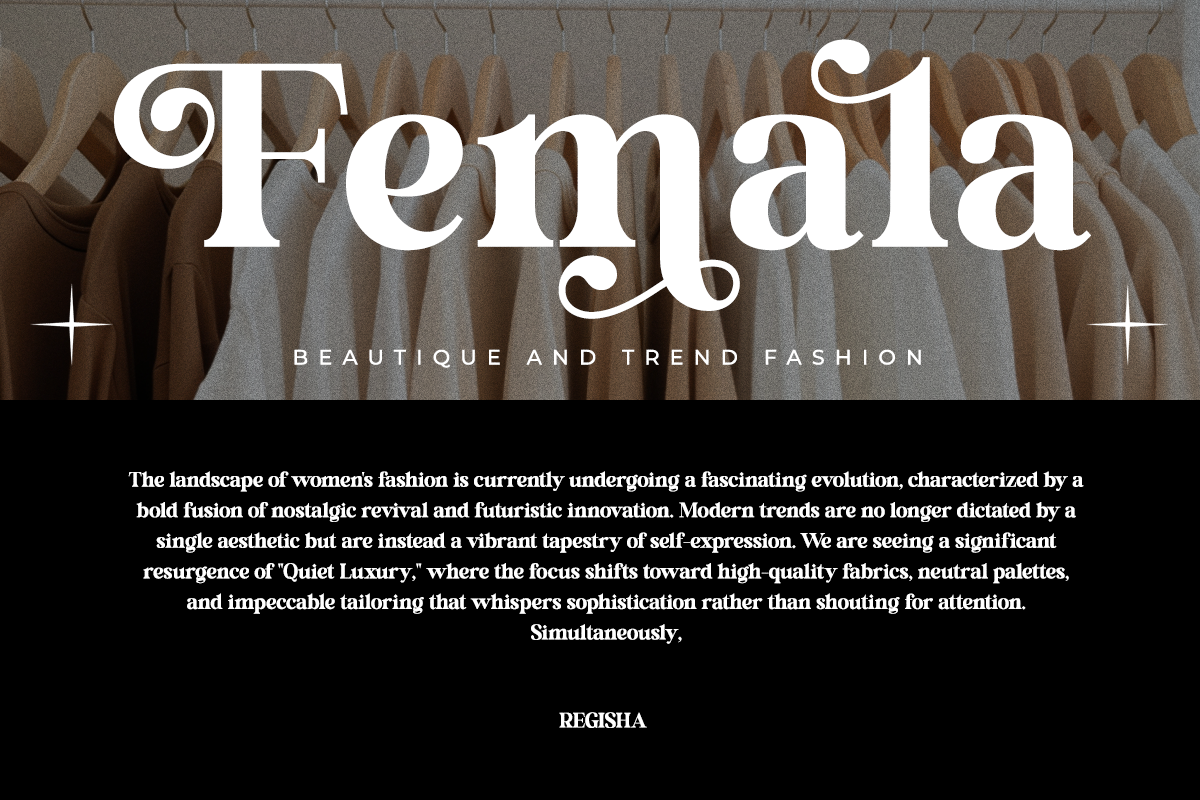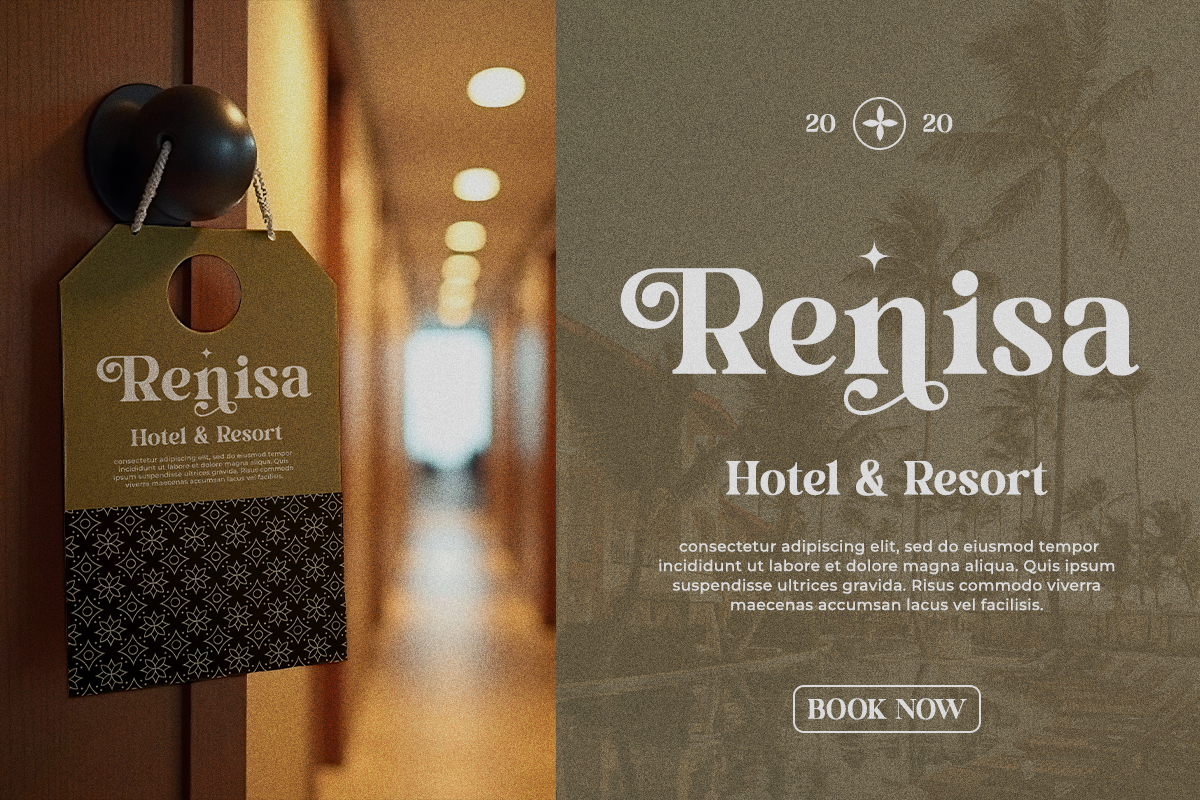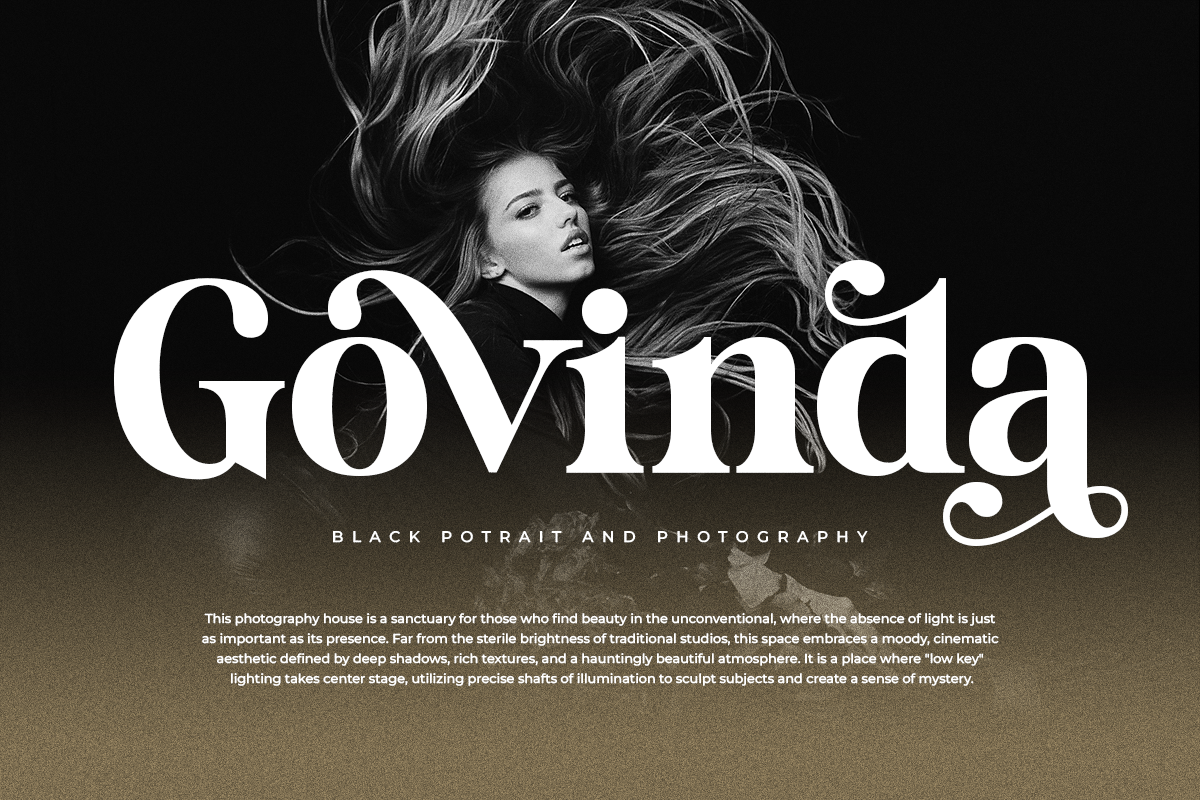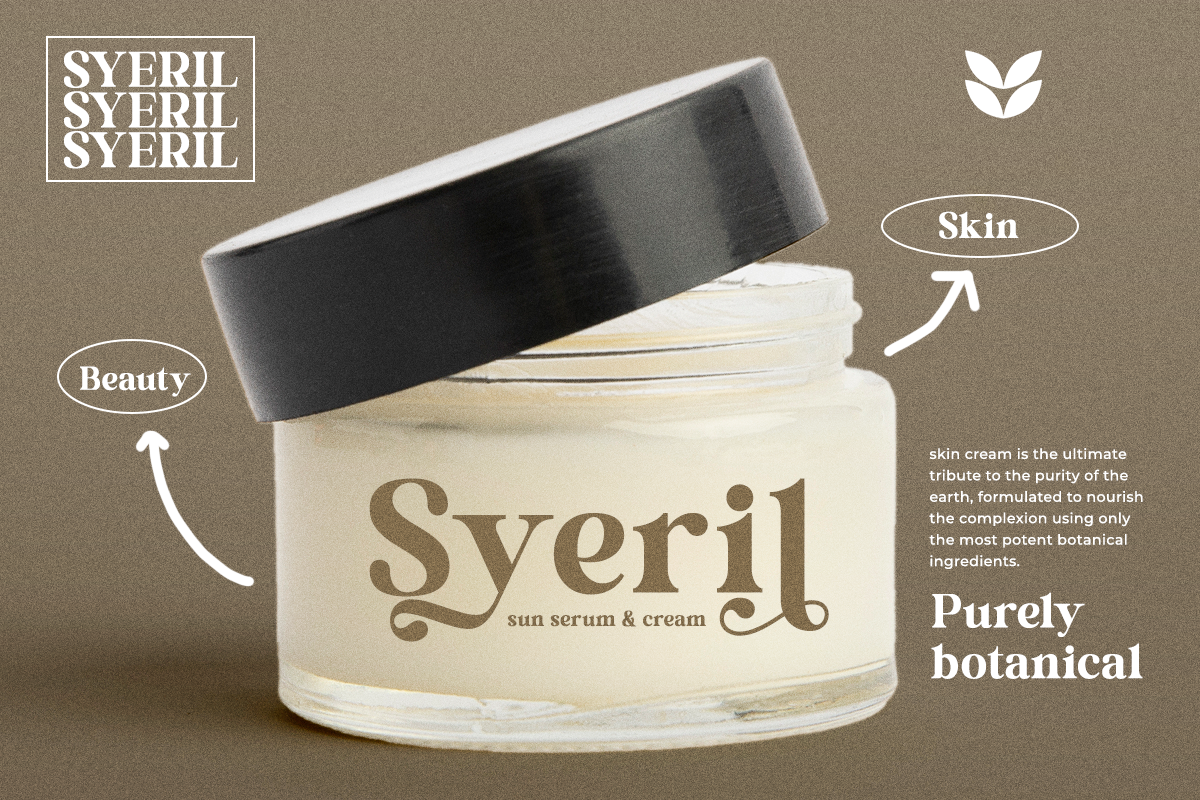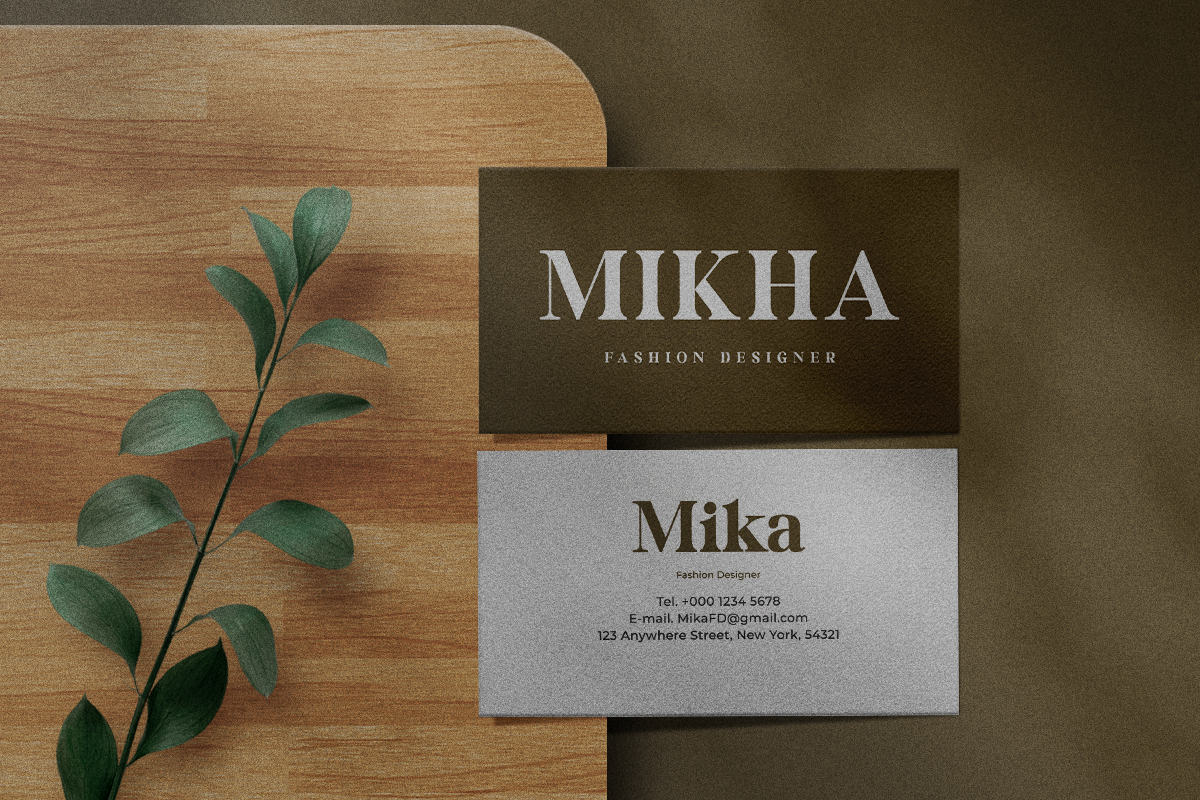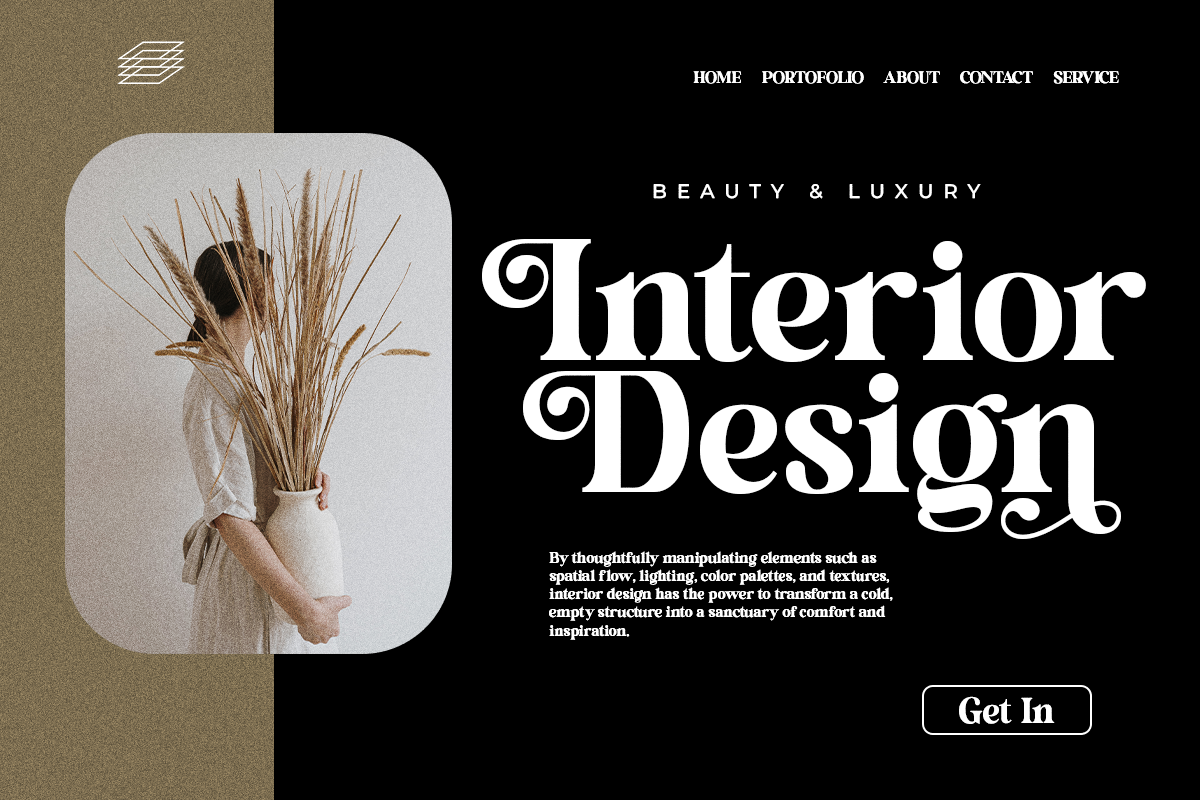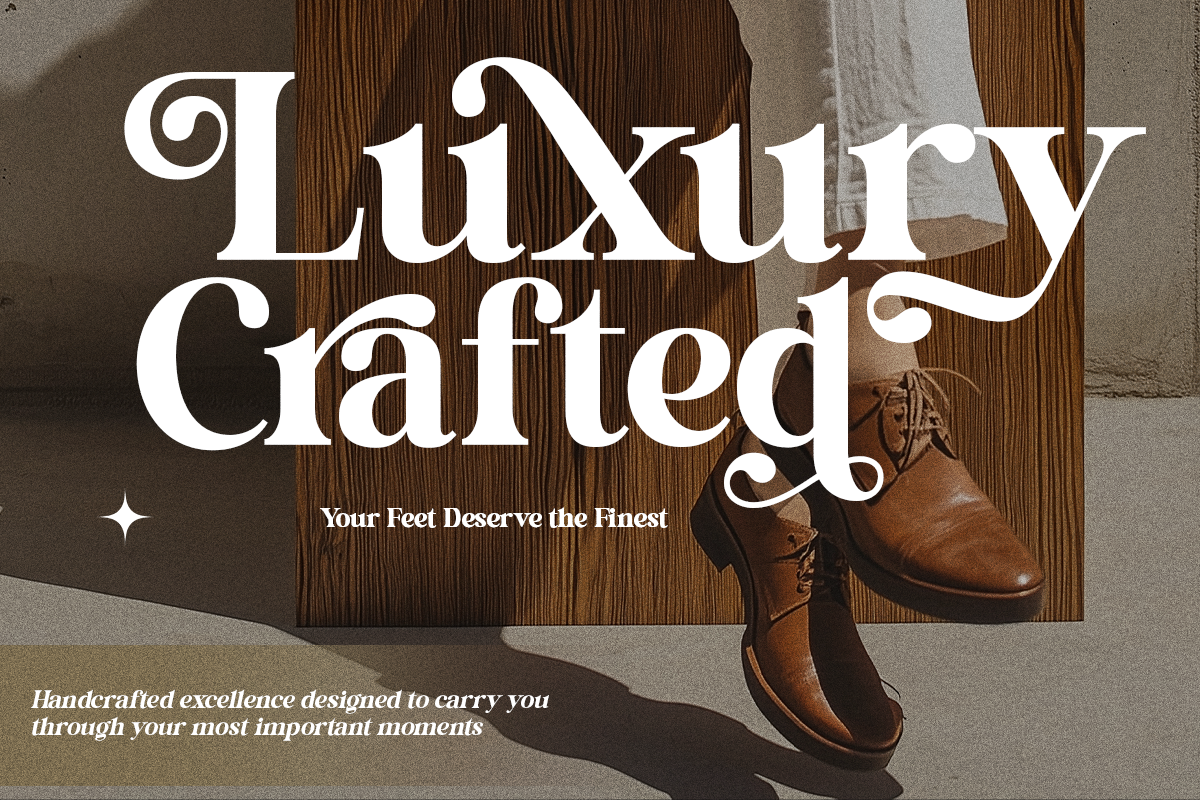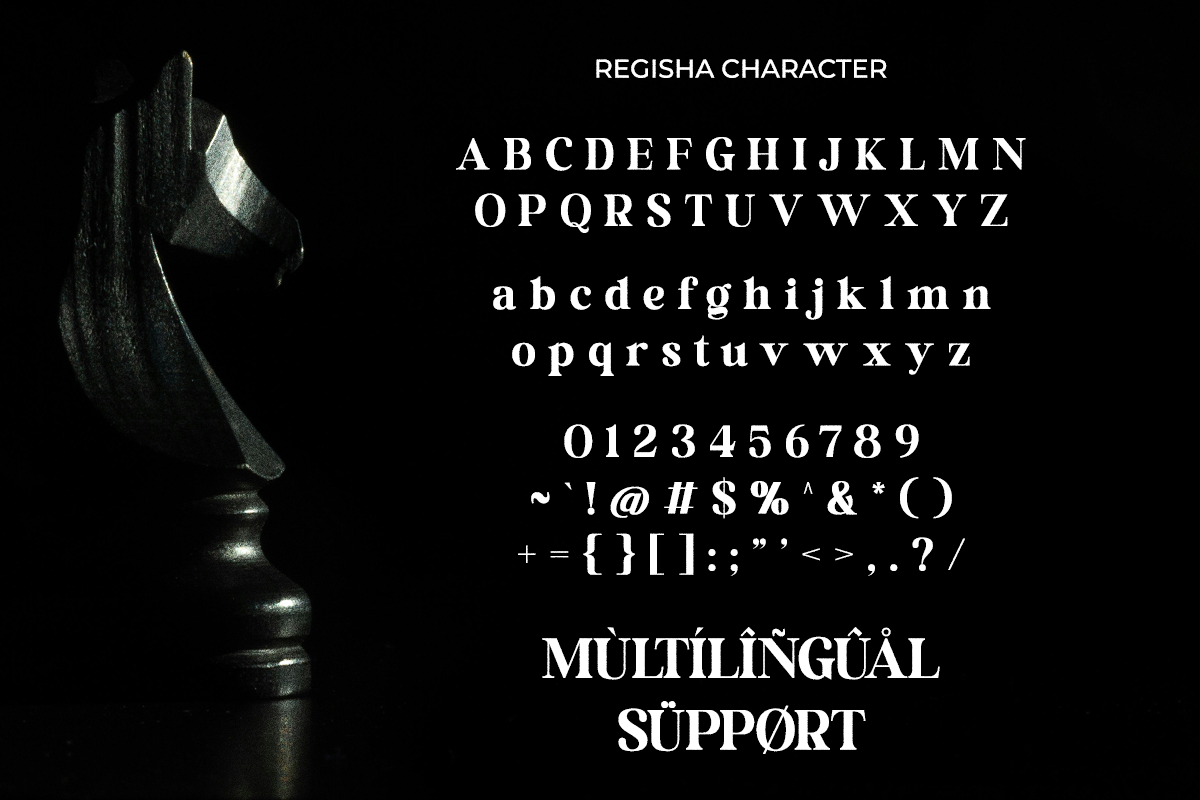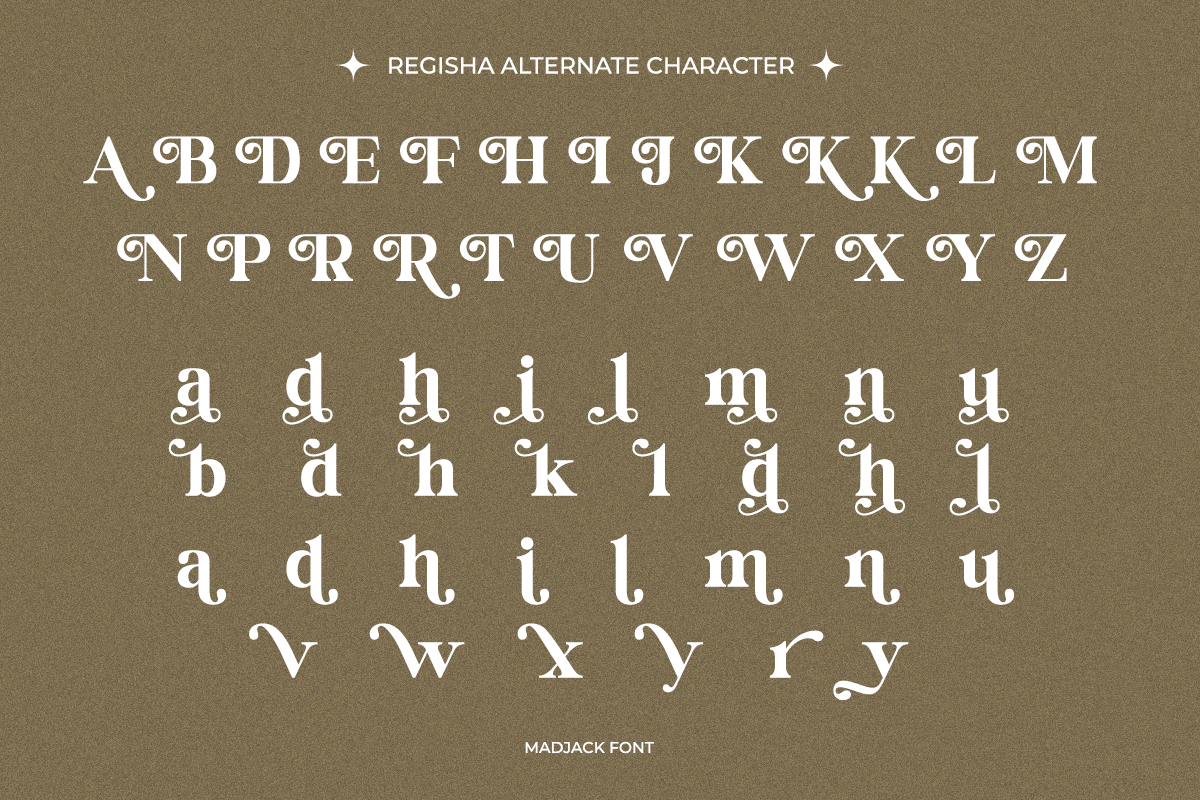
Regisha | Modern Serif
Regisha is a modern, clean sans serif typeface designed with an elegant and luxurious character. This typeface features unique letterforms with smooth curves and refined proportions, making it perfect for high-end visual communications.
Regisha is perfect for fashion branding, editorial layouts, luxury logos, posters, magazine covers, beauty products, and modern advertisements. Its bold yet soft look creates a strong visual identity while maintaining a clean and contemporary feel.
This typeface is designed to stand out at large sizes, conveying a confident, stylish, and premium feel for creative projects that require sophistication.